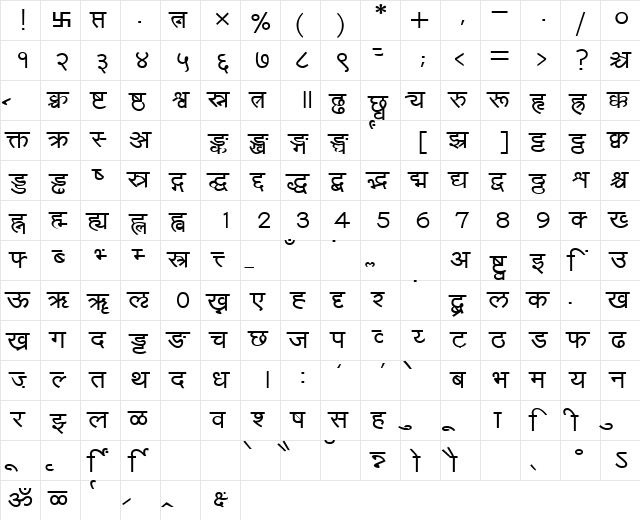
Yogeshweb Normal
Design Context for Yogeshweb Typeface
Yogeshweb is a composed and adaptable typeface that performs quietly and consistently across a wide range of design contexts.